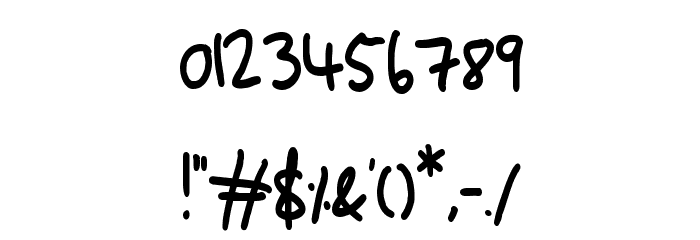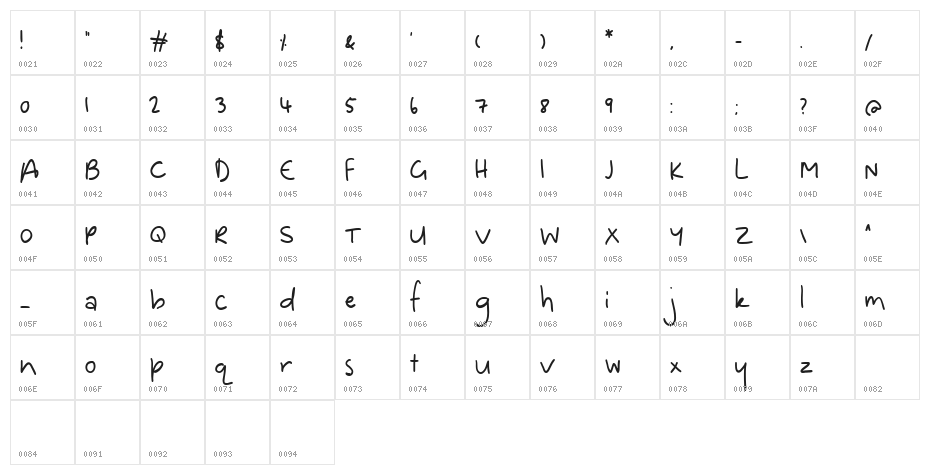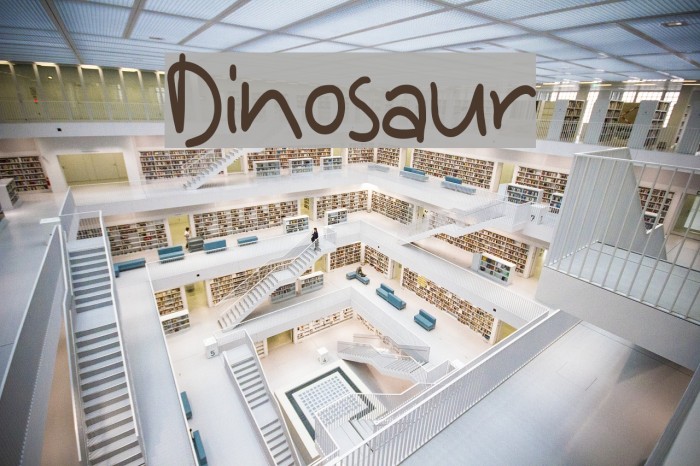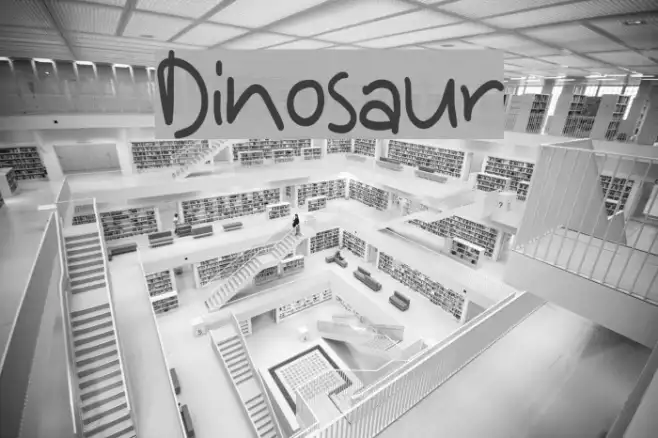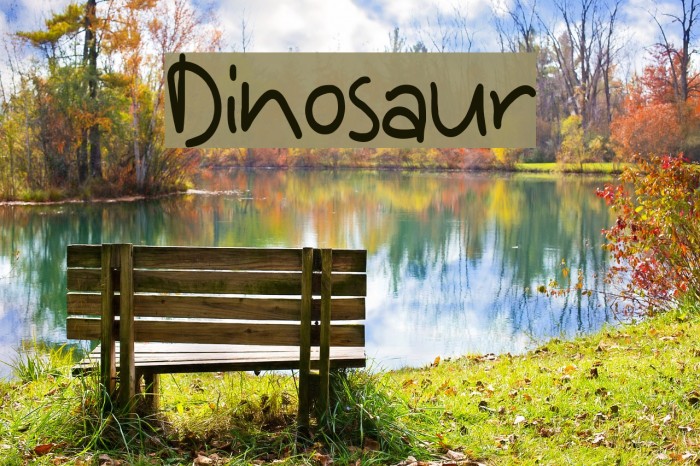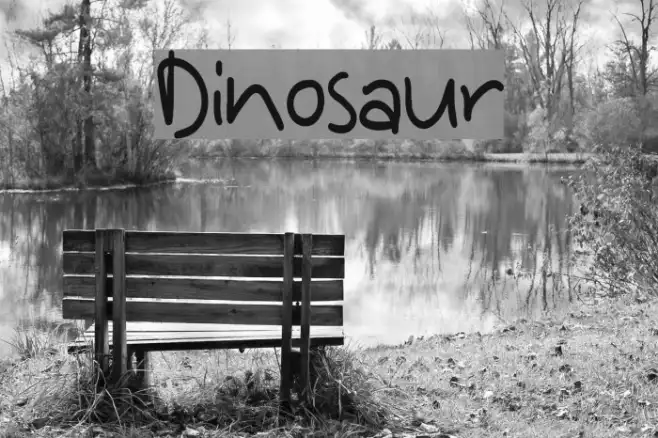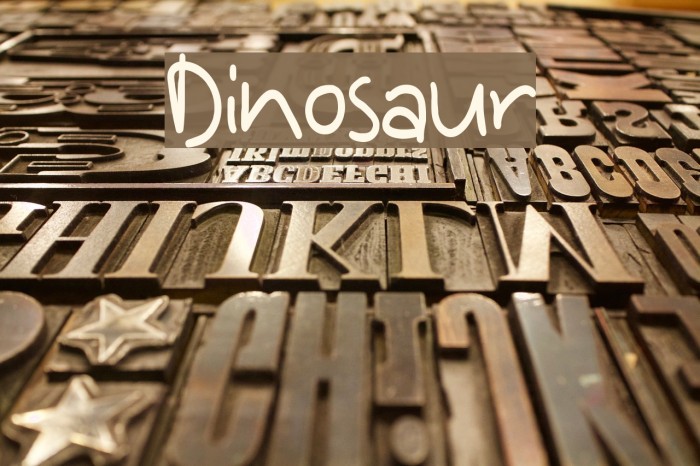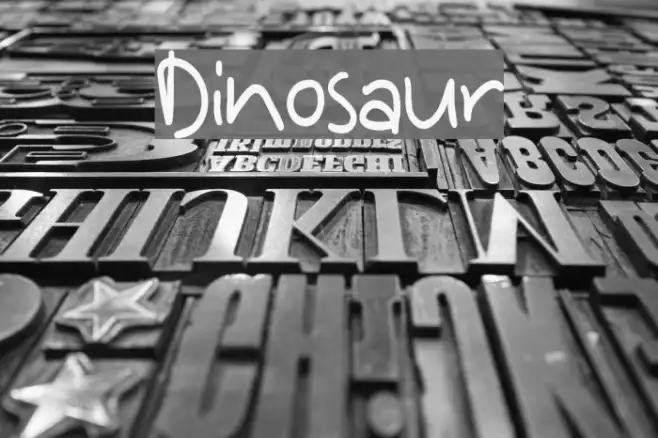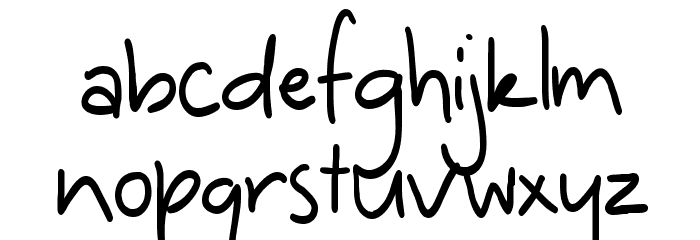
Dinosaur Font
Dinosaur Description
This font exhibits a playful and informal handwritten style, characterized by its rounded and slightly irregular letterforms. The strokes are consistent in thickness, giving it a uniform appearance while maintaining a casual, friendly vibe. The uppercase letters are bold and prominent, while the lowercase letters retain a more relaxed and approachable feel. Numbers and special characters are crafted with the same playful touch, making them easily readable and visually appealing. This font is perfect for projects that require a personal and informal touch, such as greeting cards, children's books, or casual branding materials.
| Proposed Projects | Ideal for greeting cards, children's books, casual branding, and informal invitations. |